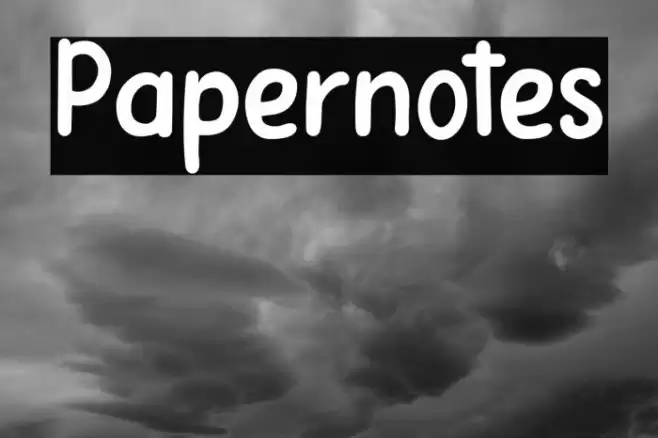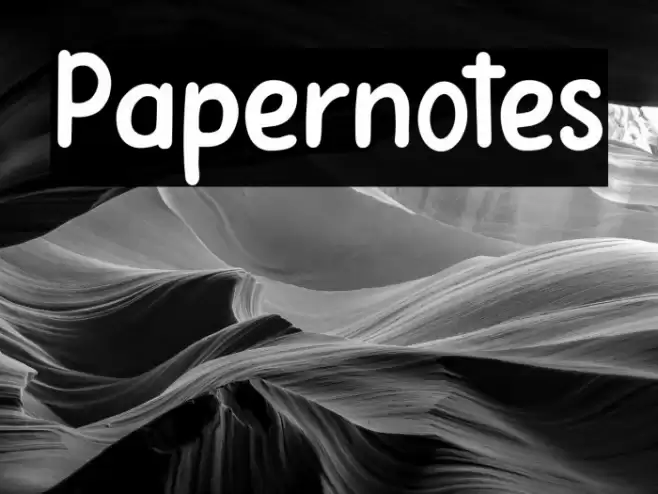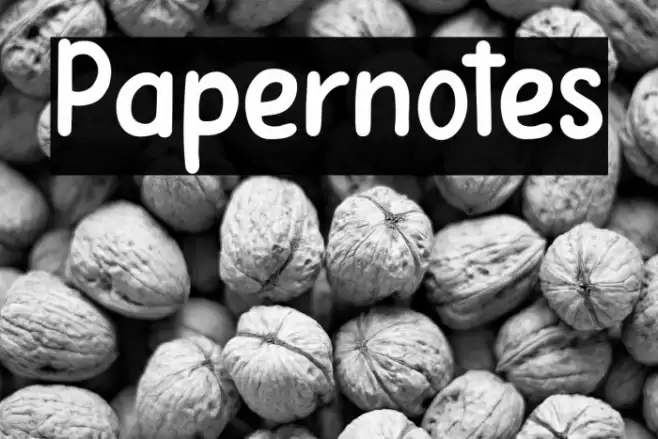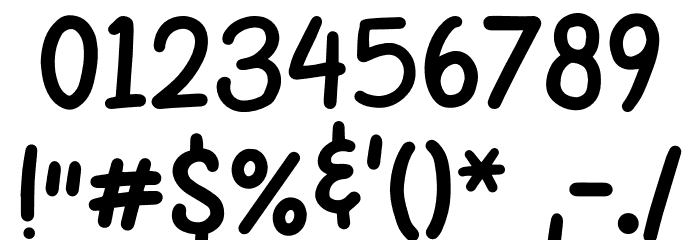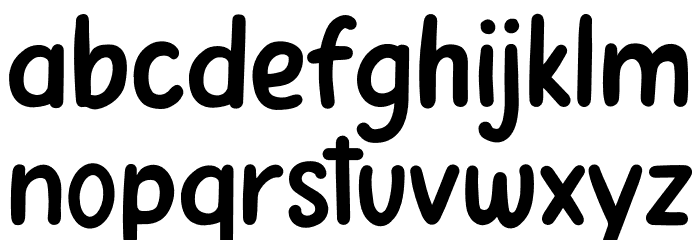
Papernotes Font
Papernotes Description
This playful and casual font exudes a handwritten charm, reminiscent of notes jotted down on paper. The characters are rounded and slightly irregular, giving them a friendly and approachable feel. The strokes are consistent in weight, providing a uniform appearance across all letters and numbers. The font includes a full set of uppercase and lowercase letters, numerals, and a variety of special characters, making it versatile for different uses. Its informal style is perfect for projects that require a personal touch, such as greeting cards, invitations, or children's books.
A playful, handwritten-style font with rounded, consistent strokes from Regular fonts.
- Proposed Projects: Ideal for greeting cards, invitations, children's books, and casual branding.
- Overall Style: Casual
- Use Case: Headlines, Informal text, Personal projects